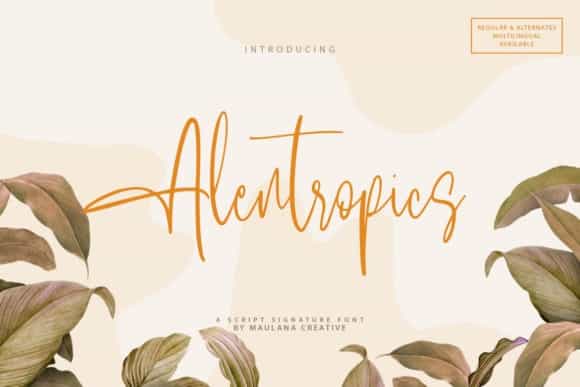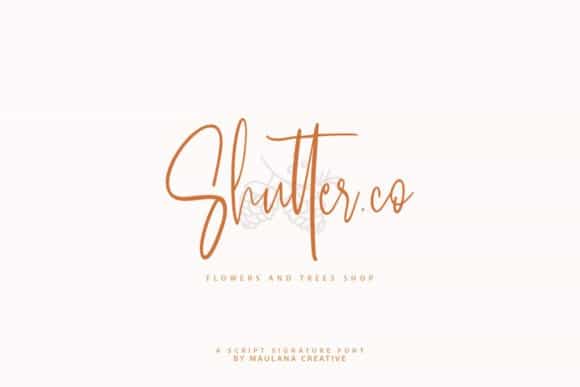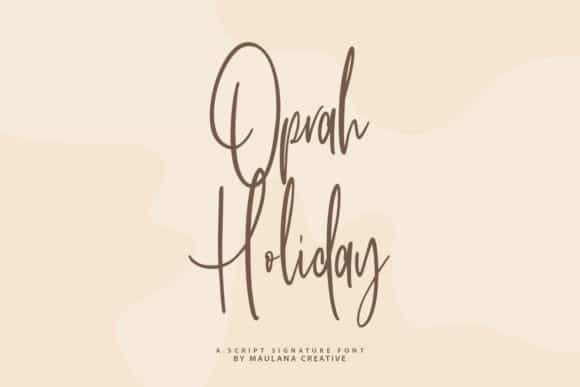
Discover Alentropics Font, part of the Calligraphy Handwritten collection—a versatile and unique font perfect for adding a personal touch to your projects. Download it for free and enjoy crafting designs with style, from invitations to social media posts. This font is available exclusively for personal use, giving you the freedom to create without limits. Unlock your creativity with Alentropics Font today!
The Alentropics Font is a great font for the modern hand lettering logo or headline, display and poster designs. Suitable for any design needs : logos, branding, modern advertising design, logos of posters quotes and books covers title typeface designs editorial website blog card custom mug pillow t-shirts etc.